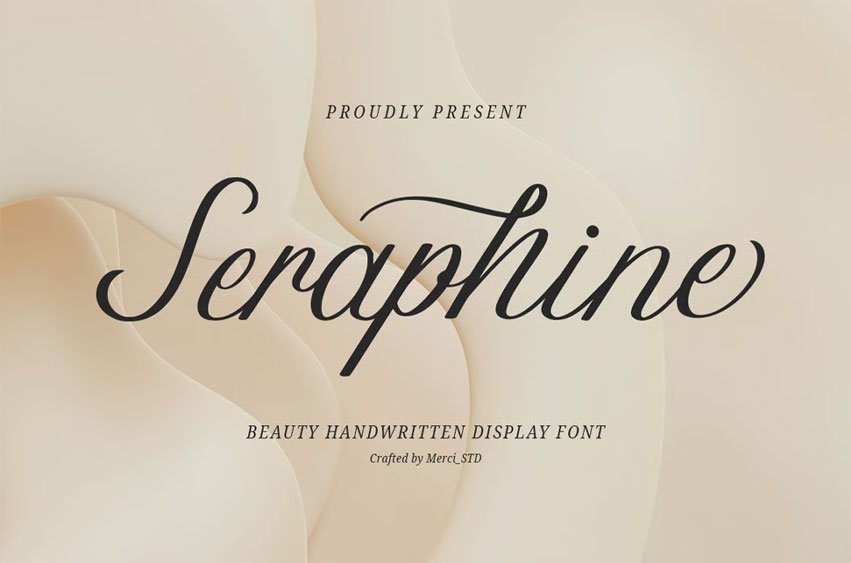
Seraphine Display Font is a smooth and elegant handwritten script font with flowing strokes. Perfect for wedding invitations, branding, logos, and feminine design projects.
- Unique Hand-Drawn Style